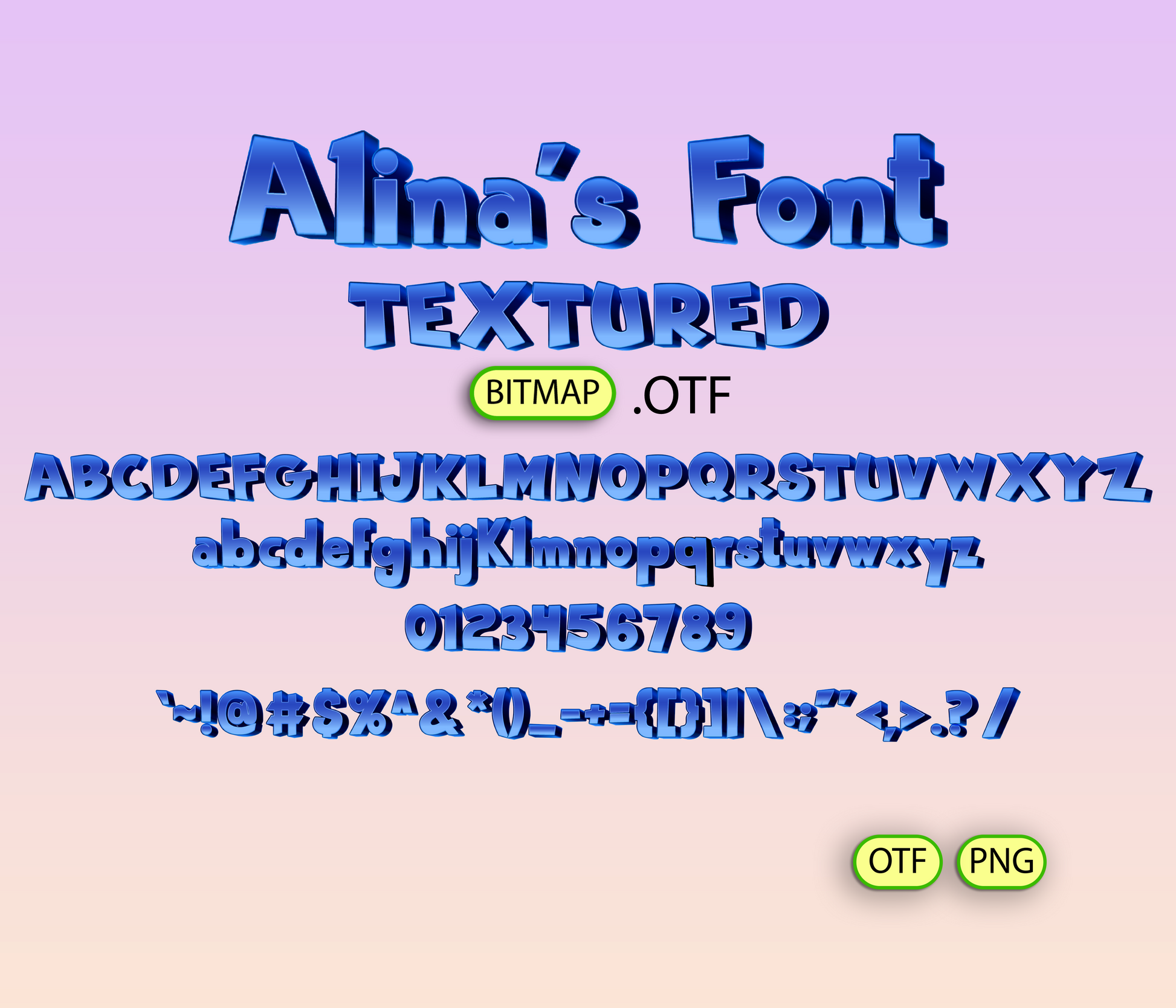
Enchanted Village Font Textured
Are you looking for a fun and colorful font to spice up your designs? Do you love magical little blue creatures and their whimsical world? If so, you will love Enchanted Village Font, a textured font inspired by beloved animated characters!
Enchanted Village Font is a unique and creative font that captures the essence of a charming forest community. It has a playful and whimsical style that is perfect for creating t-shirts, mugs, posters, stickers, invitations, cake toppers, and more. You can use Enchanted Village Font to add some magical flair to your projects and impress your friends and customers.
Enchanted Village Font is a must-have for any fan of whimsical characters or designer who wants to create fun and colorful designs. Don't miss this opportunity to get Enchanted Village Font today and unleash your creativity.
This font brings the joy and magic of a tiny forest village to life, perfect for creating a world of imagination for children and adults alike. Whether used for educational purposes or just for fun, this font adds a touch of enchantment to any project.